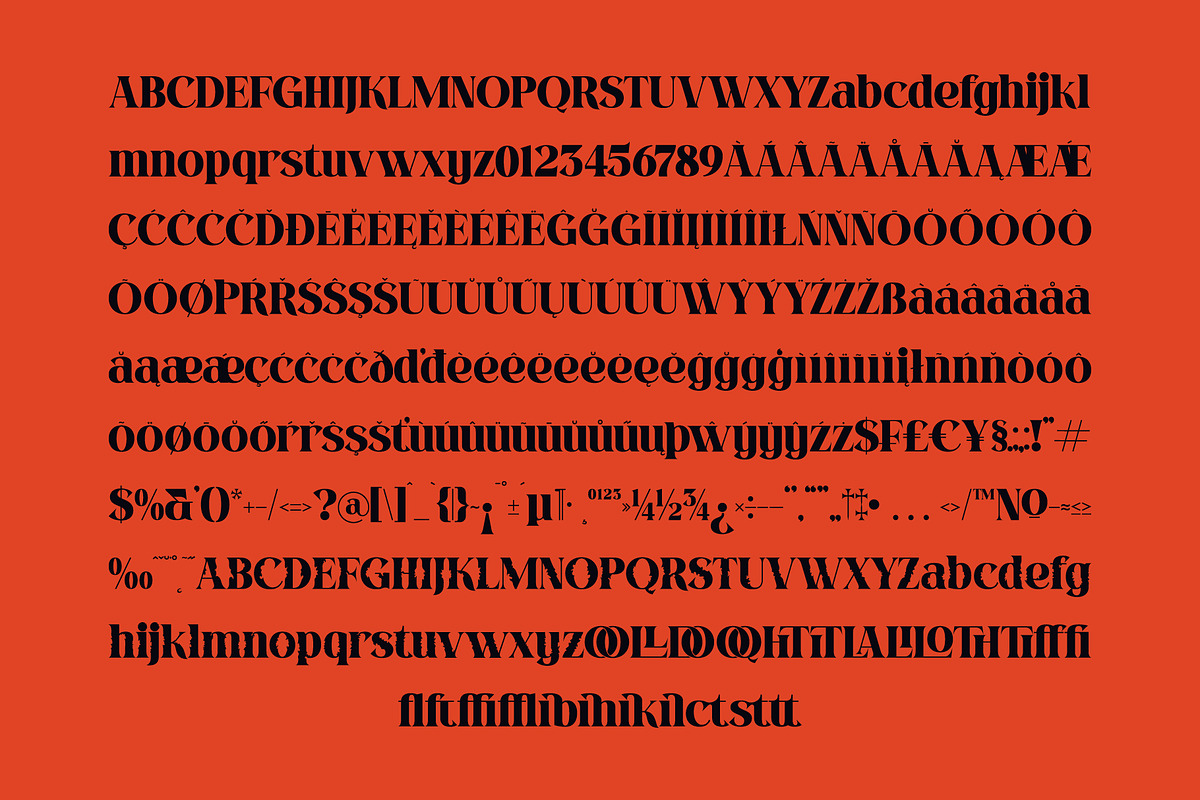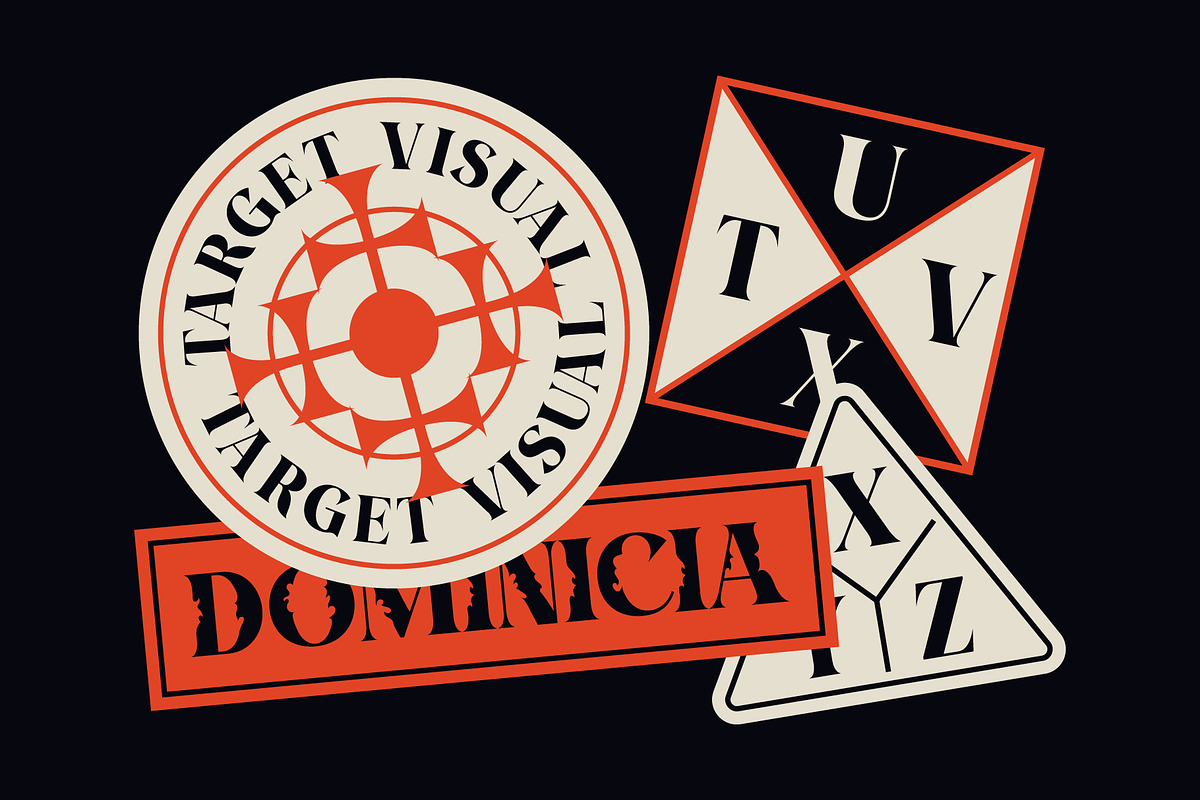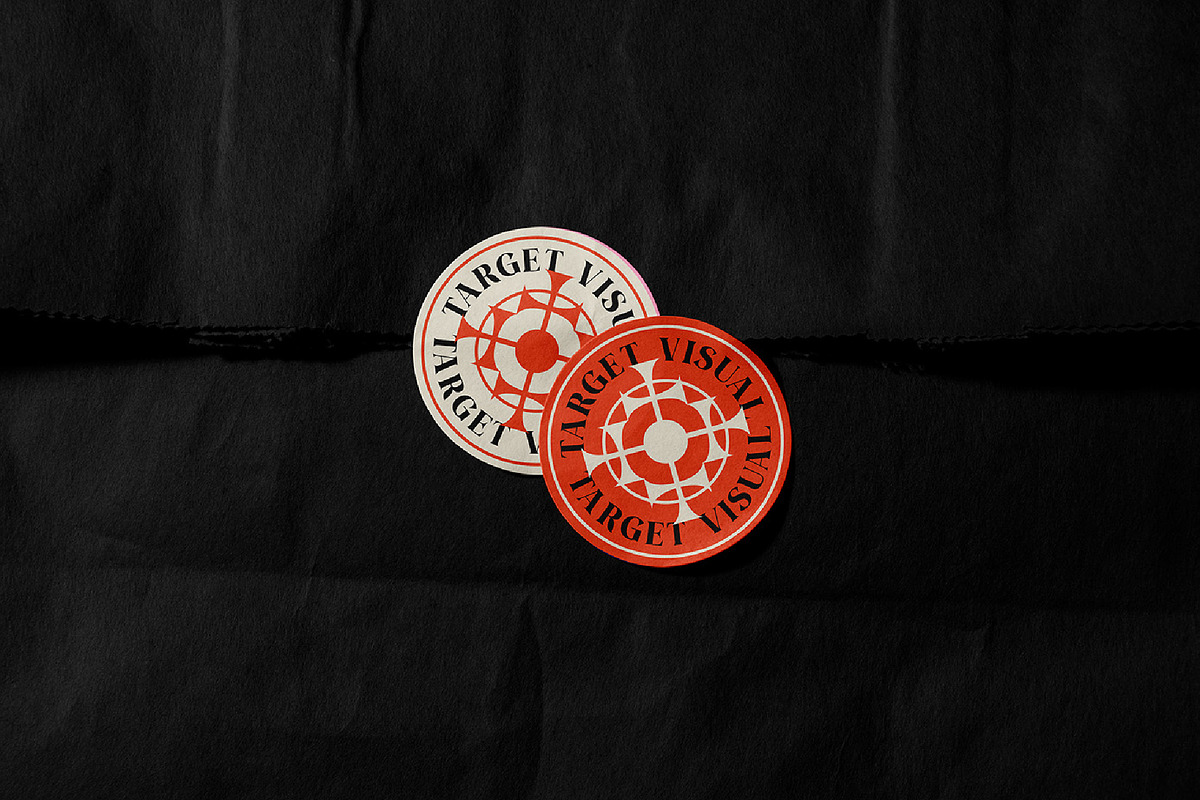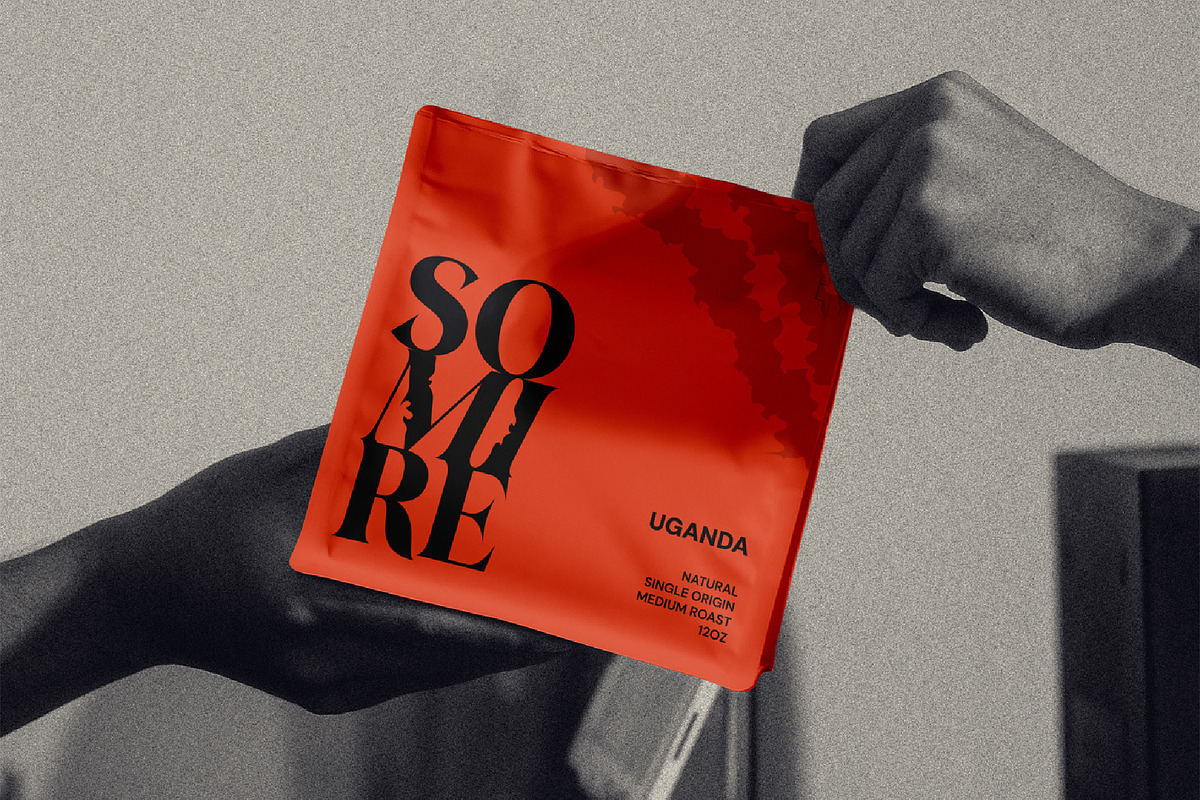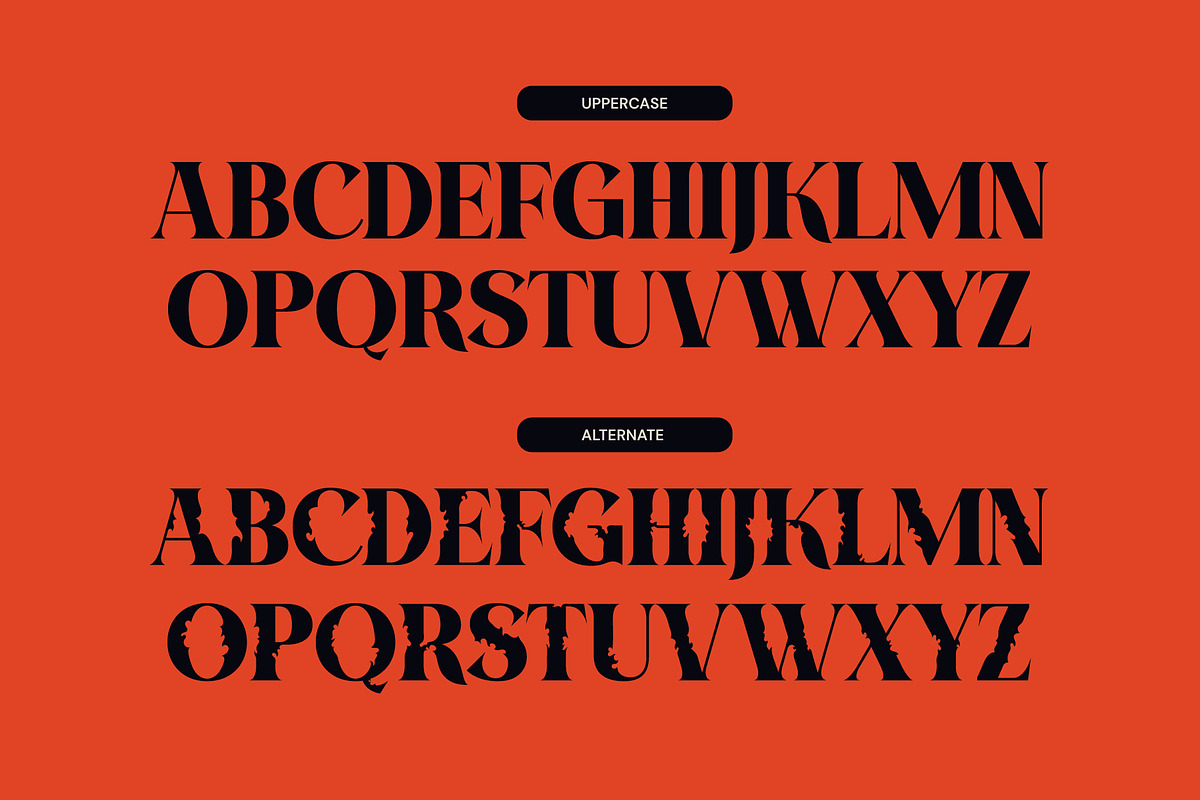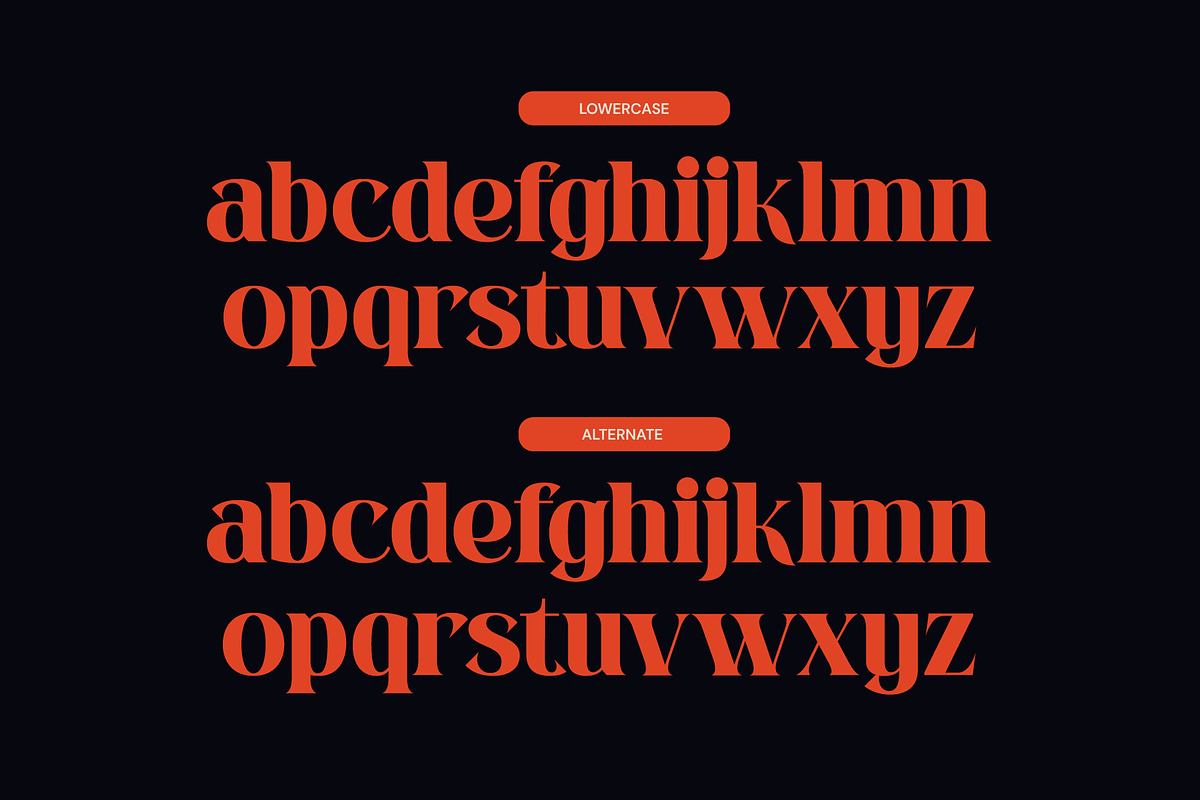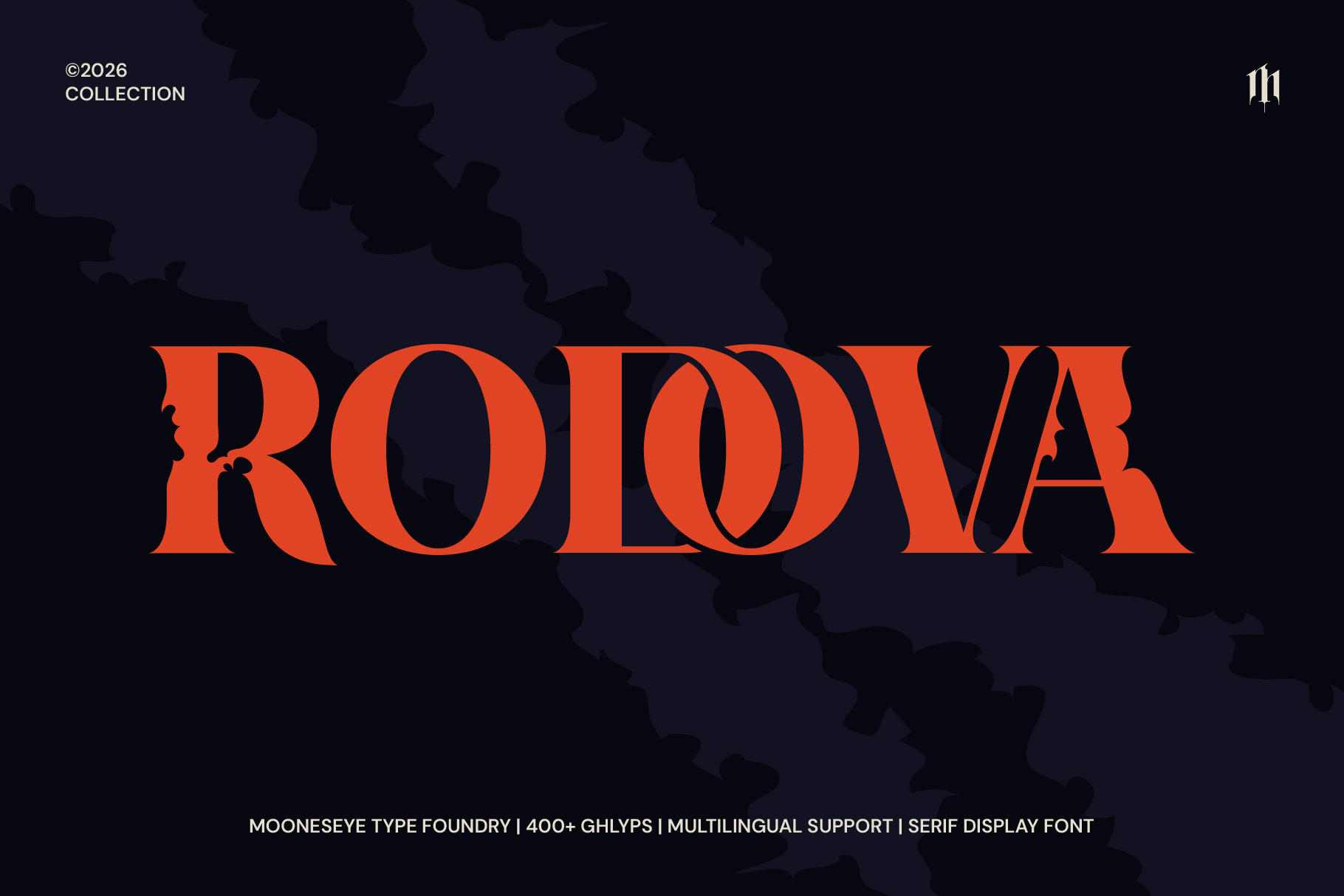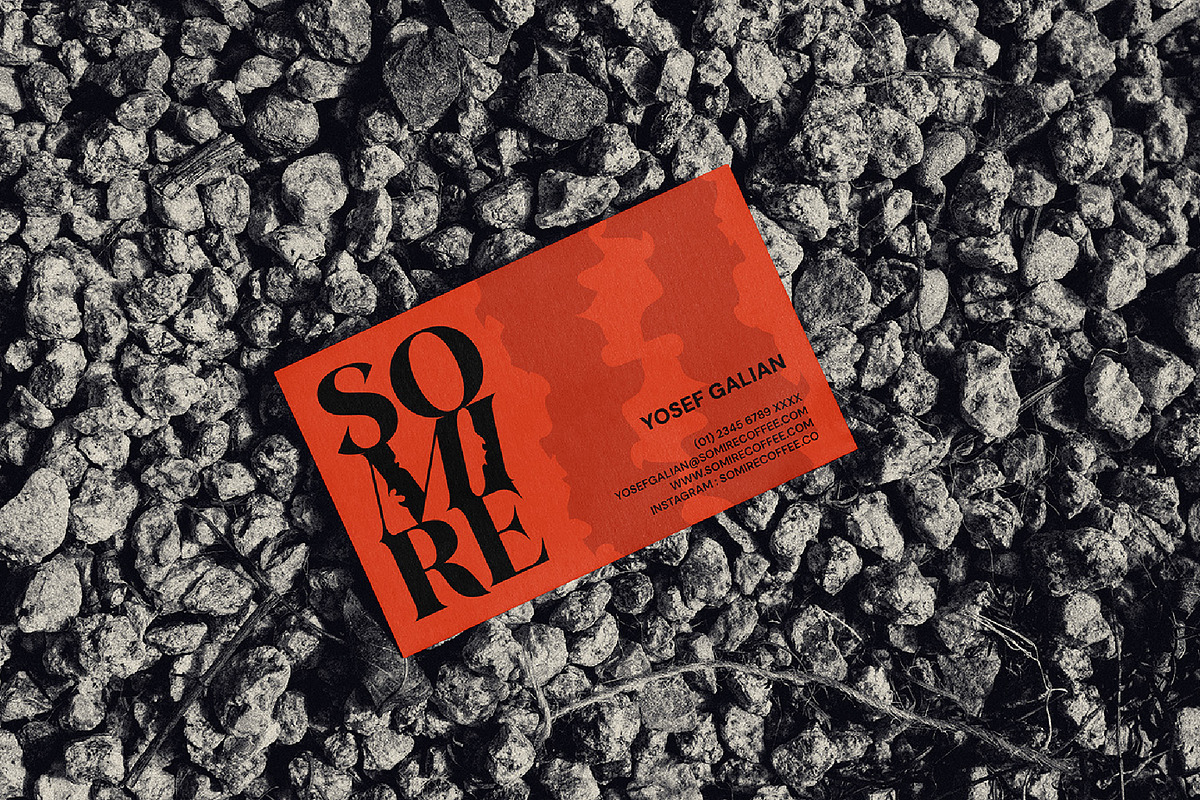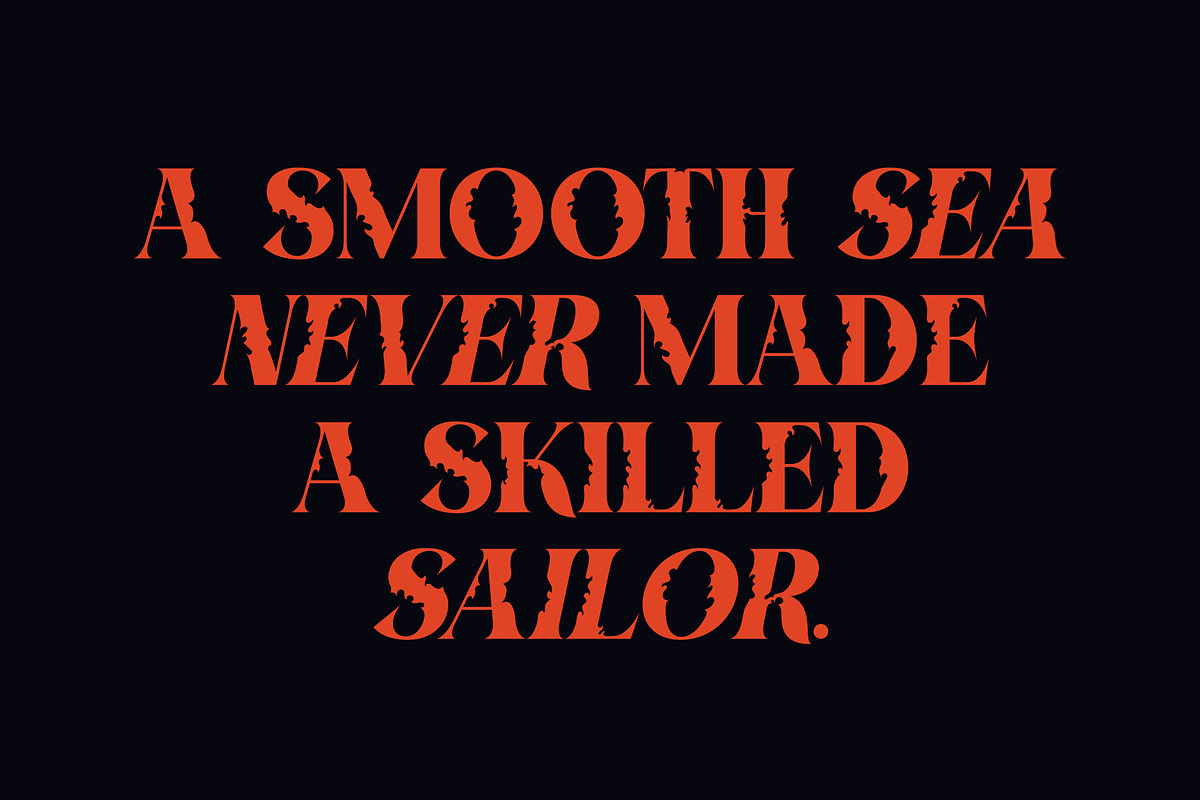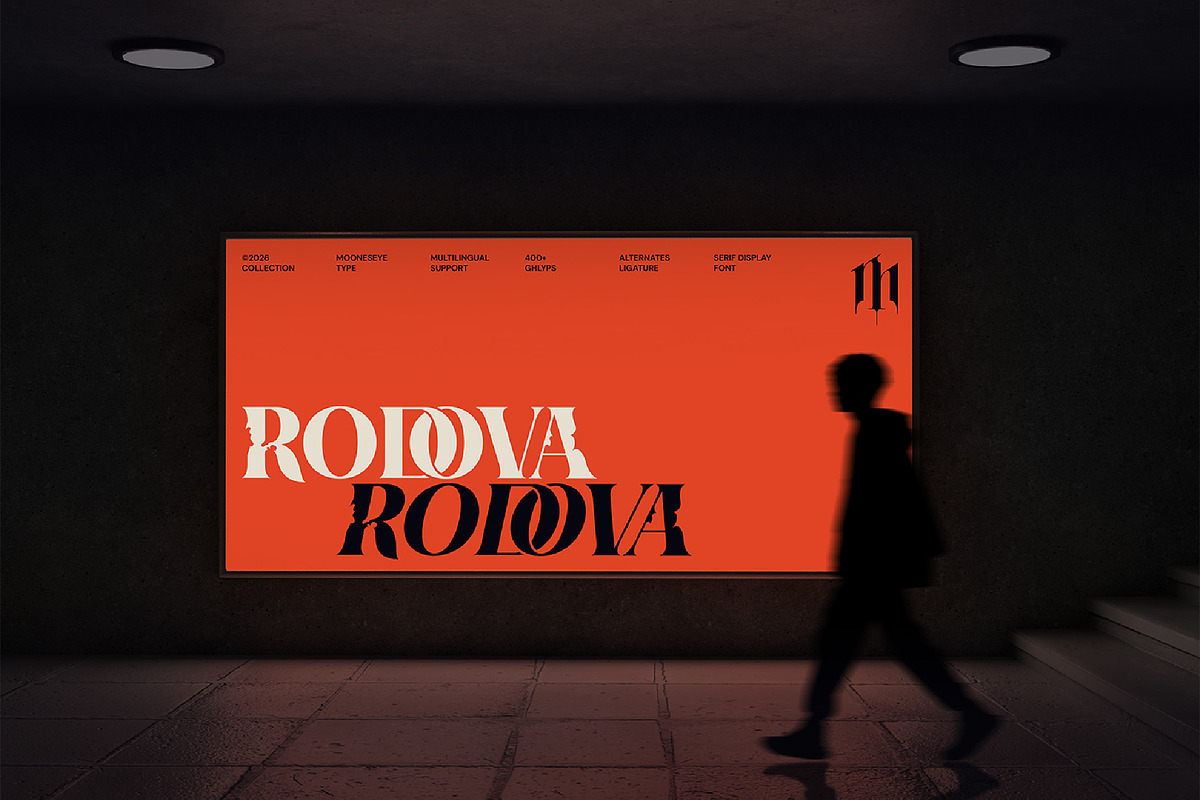
Rodova - Modern Serif Display Font
Step away from the ordinary and give your designs a sharp, high-contrast edge with Rodova. This isn't just another serif; it’s a dual-identity powerhouse designed to transition seamlessly from high-end luxury to underground grit.
Imagine your next project—whether it’s a sleek fashion magazine masthead or a raw, avant-garde streetwear logo. Rodova breathes life into your headlines with its dramatic thick-and-thin strokes and unique "thorned" alternates. It’s fluid, it’s sharp, and it’s meticulously crafted to make every word look like a custom piece of art.
If you’ve been looking for that "perfect" font that feels both expensive and experimental, Rodova is your new go-to. It’s built for impact, designed for creators who aren't afraid to push boundaries, and packed with enough character to carry an entire brand identity on its shoulders.
What makes Rodova special:
Dual Aesthetic Magic: Choose between "Clean" for luxury and "Thorned Alternates" for a dark, experimental vibe.
Woven Headlines: Designed for tight kerning to create that high-fashion "interlocked" look.
Massive Glyph Library: Over 400+ characters to ensure you never run out of creative options.
Elegant Ligatures: Custom-designed pairs that make your typography flow like liquid.
Global Language Support: Reach a Latin multilingual character